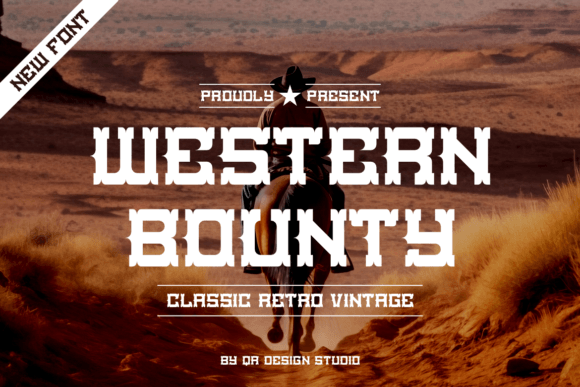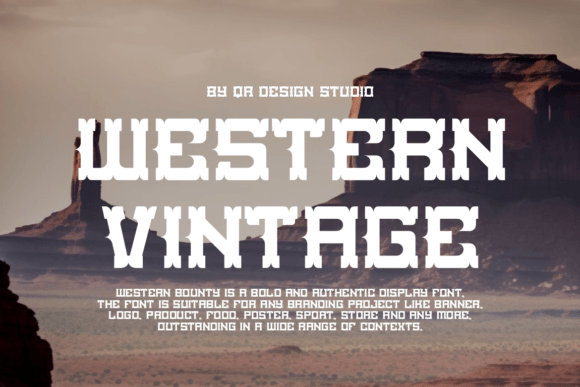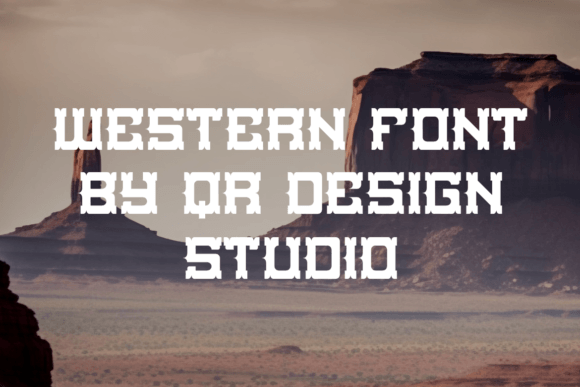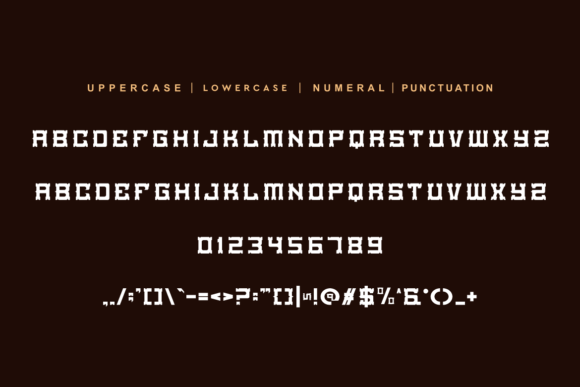
Western Bounty Font
Western Bounty is a rugged display font reminiscent of the Wild West. Its bold strokes and vintage charm evoke images of saloons and dusty trails. Perfect for posters, branding, and labels, it brings a nostalgic Western flair to any design, capturing the spirit of adventure and frontier life.